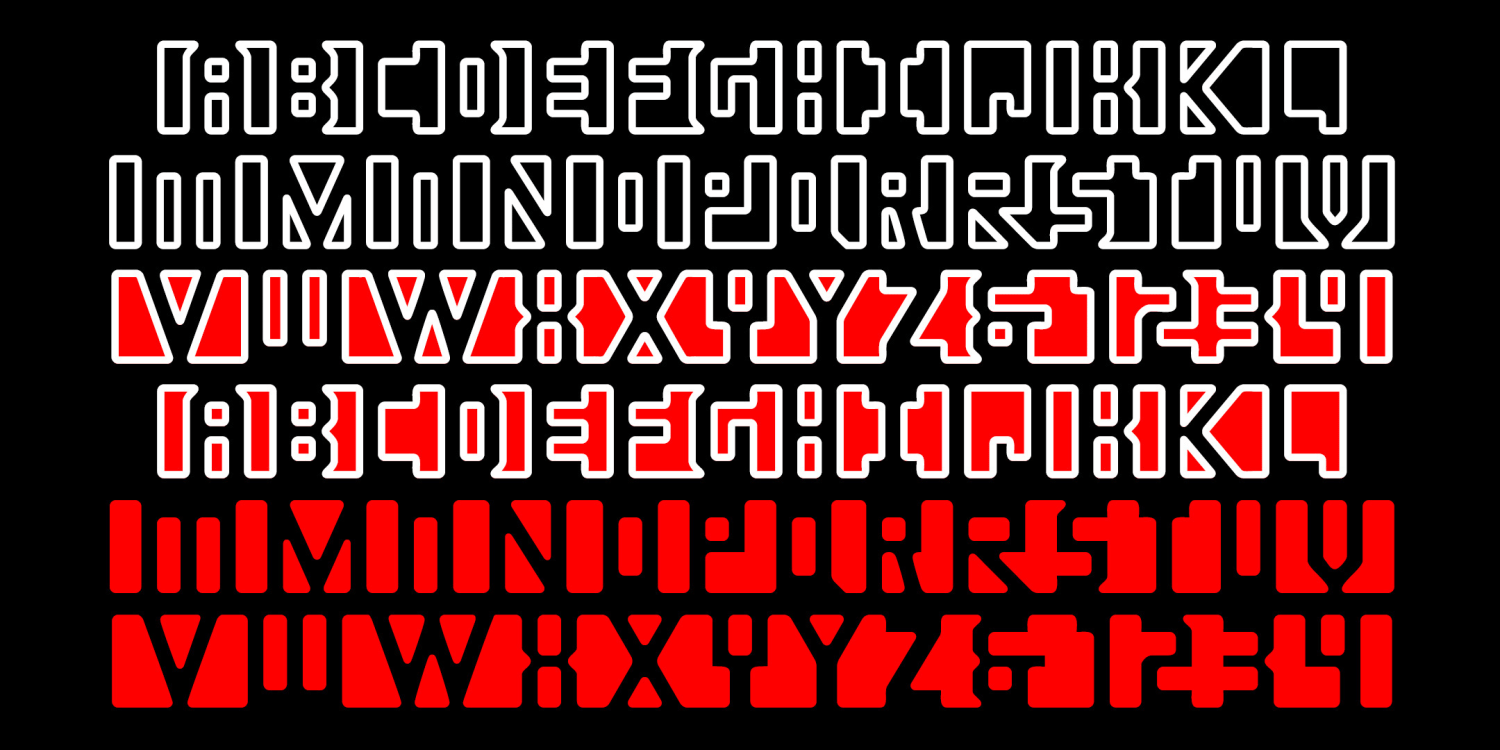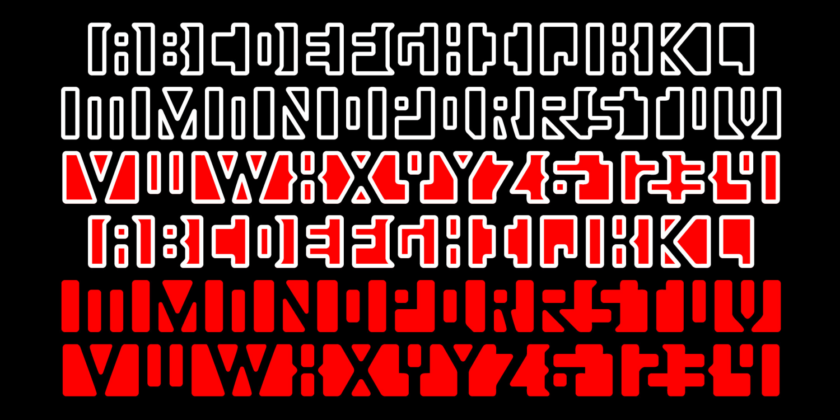
Aperture
About Aperture
APERTURE is a special-effects font specially designed to be difficult to read! Use it for a puzzling or comic effect or to suggest an alien script that only some can read. There are outline and solid fonts that can be used separately or layered together;…